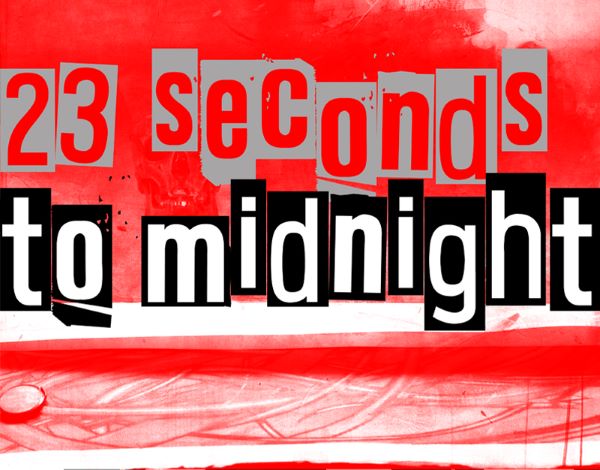
23 Seconds To Midnight Font
23 Seconds To Midnight Font is a Punk Font by Junkohanhero that defies conventions with chaotic digital letterforms that seem wild at first glance but come together to create a charming and genuinely artistic typographic expression. Its unconventional box-font construction pushes the boundaries of legibility while somehow making every text feel creative, bold, and full of character.